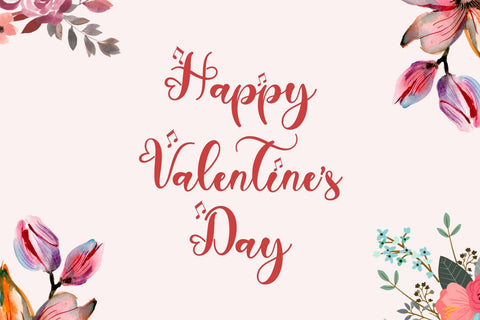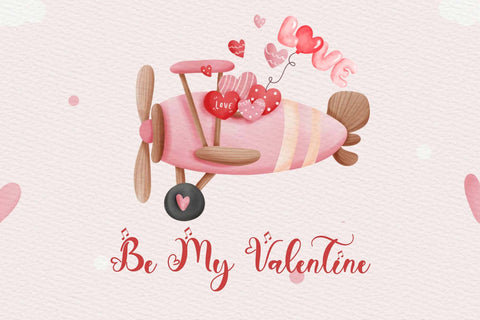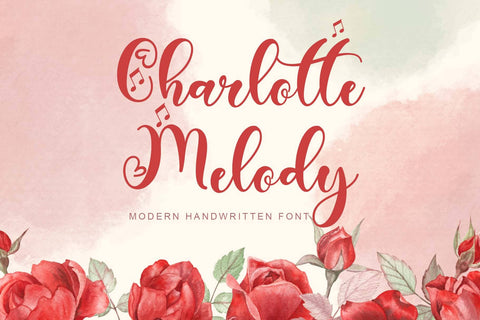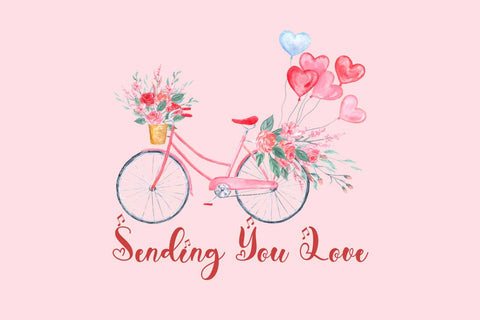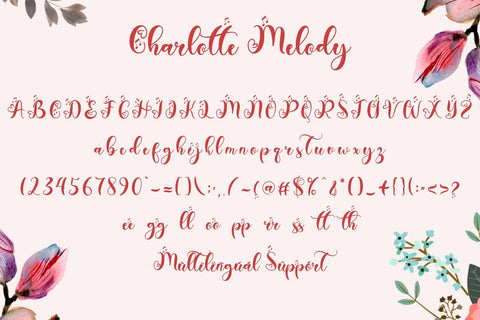
Charlotte Melody
"Charlotte Melody" is a beautiful and romantic handwritten font. Heart-shaped font with musical melody decoration. Equipped with uppercase letters, lowercase letters, ligatures, numerals, punctuation, and multilingual support. It is very suitable for weddings, invitations, spring, Valentine's Day, and others.